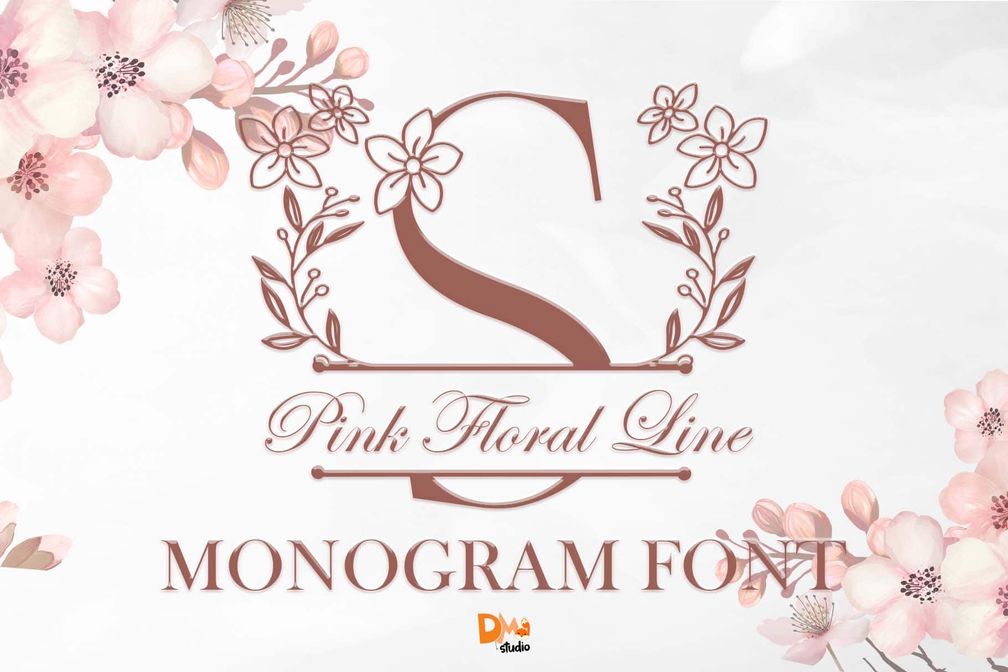
Pink Floral Line Monogram
Pink Floral Line Monogram – Elegant & Feminine Floral Monogram Font
Pink Floral Line Monogram is a beautifully crafted monogram font featuring soft floral line art that evokes charm, elegance, and grace. Inspired by delicate flower sketches and minimalist design, this font is perfect for wedding monograms, boutique branding, personalized gifts, and romantic-themed projects. Each letter is adorned with hand-drawn floral details that bring a refined and stylish touch to your designs.
• Delicate Floral Line Art – Features minimalist, hand-drawn floral illustrations on each letter.
• Minimalist & Feminine Aesthetic – Combines floral charm with simplicity and elegance.